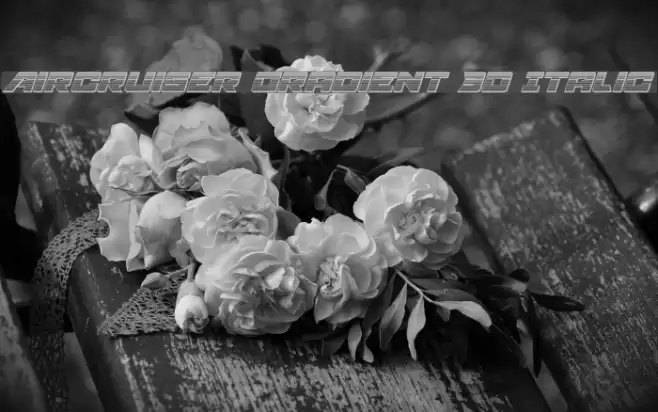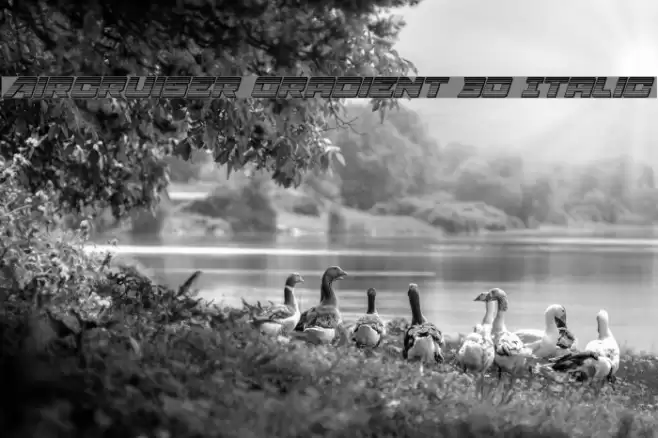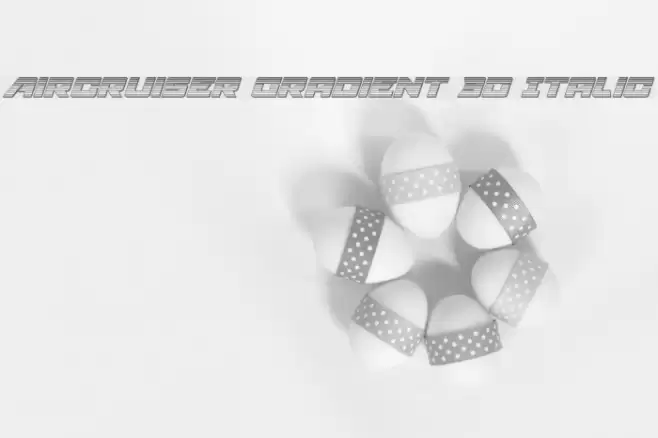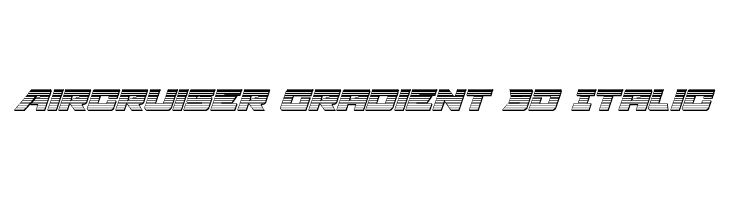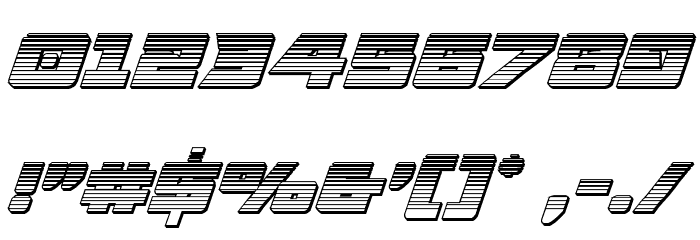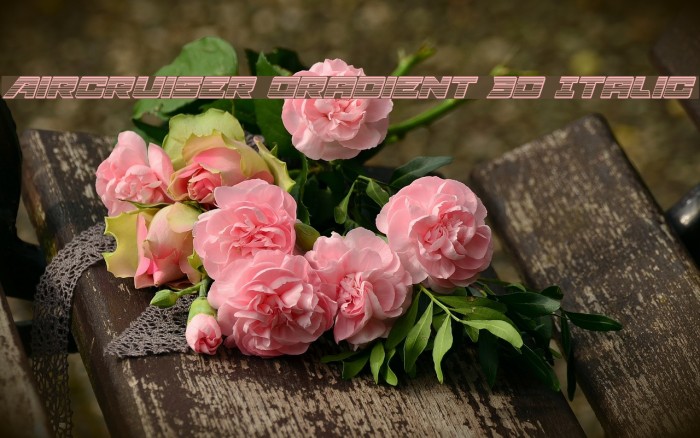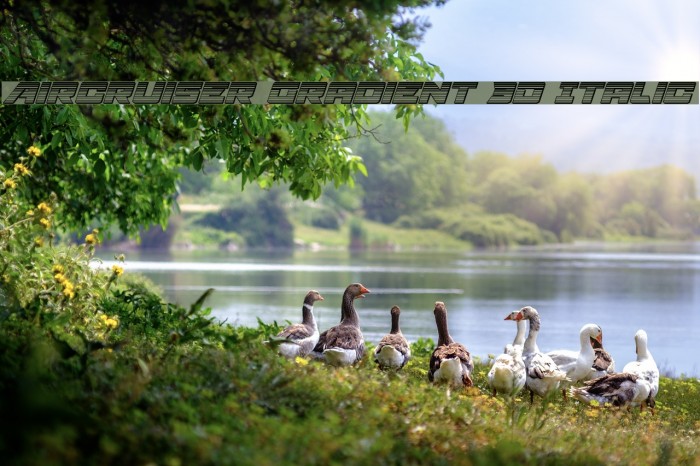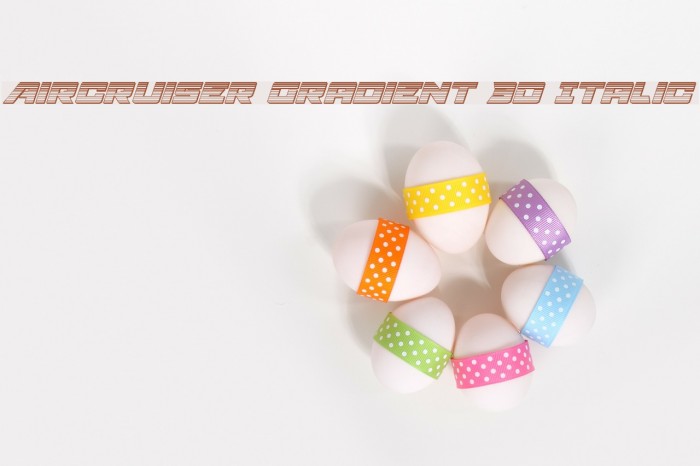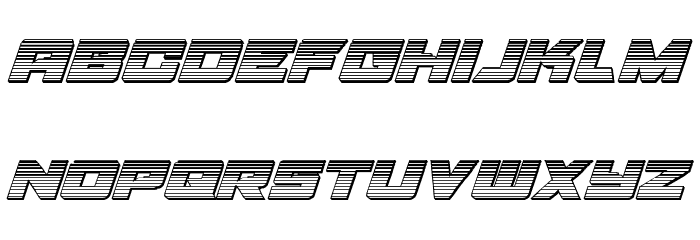
Aircruiser Gradient 3D Italic Font
Aircruiser Gradient 3D Italic Description
This font features a bold, futuristic design with a 3D gradient effect that gives it a dynamic and modern appearance. The characters are italicized, adding a sense of motion and speed. Each letter is composed of parallel lines that create a layered, dimensional look, enhancing its visual impact. The font is highly stylized, making it suitable for creative and eye-catching designs. Its unique structure and bold presence make it ideal for projects that require a standout typeface.
A bold, 3D gradient italic font with a futuristic and dynamic style from Uncategorized fonts.
- Proposed Projects: Ideal for sci-fi themed posters, video game titles, futuristic branding, and technology-related advertisements.
- Overall Style: Futuristic